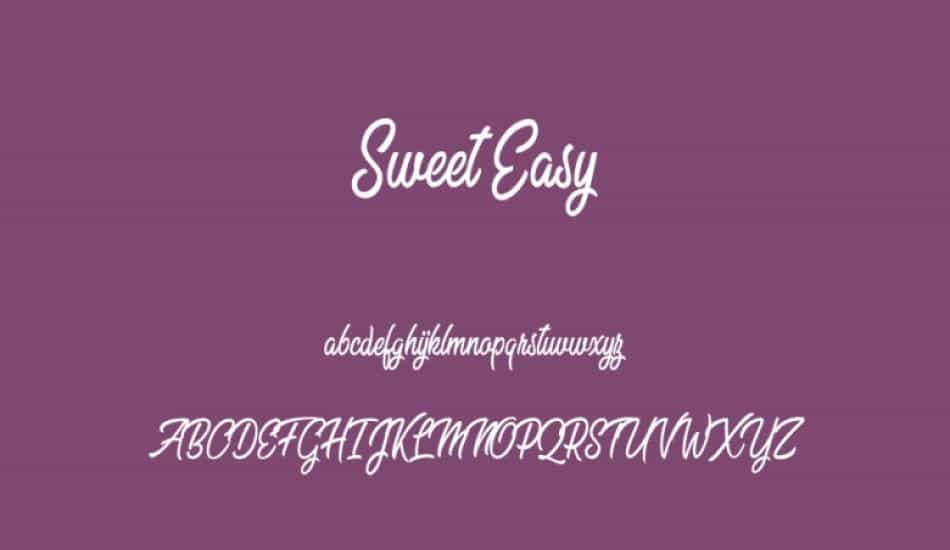
Sweet Easy by Billy Argel is an Old School font designed as a personal font so there is no royalty to pay as well as for free download. This version includes all the letters, both in upper and lower case, as well as several other unconventional symbols.